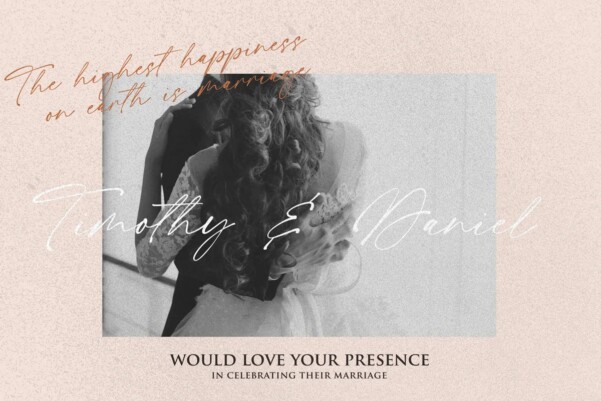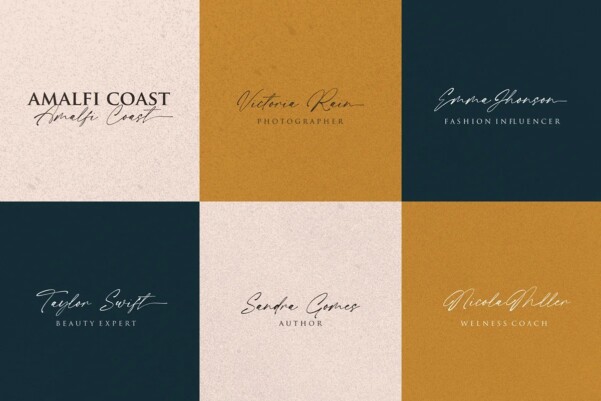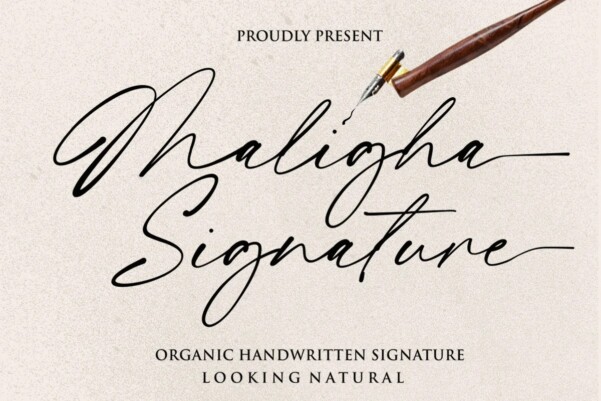
Maligha Signature Font
Maligha Signature Font our exquisite Modern Signature Font, designed to add a touch of sophistication and style to your projects. Crafted with utmost precision and creativity, this font is a true embodiment of elegance, making it ideal for various purposes. Whether you’re designing logos, wedding invitations, social media posts, branding materials, or any creative project, this font will elevate your work to new heights.